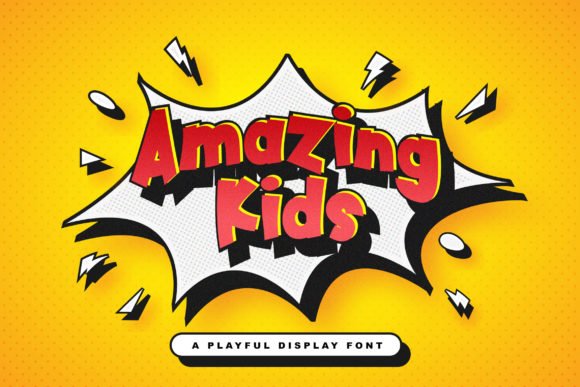
Bring Joy to Your Designs with Amazing Kids Font
Have you ever stared at a blank canvas, searching for the perfect combination of words and images to capture the essence of your creative idea? We’ve all been there – stuck in a rut, yearning for that spark that will bring our vision to life. For designers, this moment can be particularly daunting, but what if we told you that there’s a secret ingredient to add that extra oomph to your designs?
Enter the Amazing Kids Font, a playful and whimsical display font designed to add a touch of joy and whimsy to your creative endeavors. With its quirky charm, this font is sure to bring a smile to your face and elevate your designs to new heights. Whether you’re creating a children’s book, a birthday invitation, or a social media post, the Amazing Kids Font is the perfect addition to make your work truly stand out.
Amazing Kids Font Key Features
- Unique Character Set: The Amazing Kids Font features a custom-designed character set that includes letters, numbers, and symbols tailored for children’s educational materials.
- Color Variations: The font comes in 6 vibrant color variations, including blue, green, yellow, red, purple, and orange, to add a playful touch to educational materials.
Amazing Kids Font Review
I recently had the chance to work with the Amazing Kids Font, and here’s my honest take on it.
- Fun and playful feel: The font has a great, whimsical vibe that’s perfect for children’s books, apps, or other projects targeting young audiences.
- Wide character set: The font includes a range of characters, including Latin, Cyrillic, and Greek alphabets, making it a great choice for global projects.
- Customizable: The font allows for some customization options, such as font size and color, which can be useful for adapting the font to different design contexts.
- Limited flexibility: The font’s playful feel may not be suitable for more serious or formal projects.
- Not ideal for small text: The font’s thick lines and rounded shapes can make it difficult to read in smaller sizes.
- Not a lot of weight options: The font only comes in a few weights, which may limit its usability in projects requiring more variety.
Overall, the Amazing Kids Font is a fun and playful choice for projects targeting young audiences. While it has some limitations, it’s a great option for designers looking to add some whimsy to their designs.
Tips for Getting the Most Out of the Amazing Kids Font
For best results, use the Amazing Kids Font for headings and titles to create a playful and eye-catching design.
Experiment with different font sizes and styles to add visual interest to your design.
The Amazing Kids Font is perfect for:
Children’s book covers and illustrations.
Party invitations and decorations.
Education and learning materials.
Q: What is the recommended font size and line height for the Amazing Kids Font?
For optimal readability, we recommend using a font size between 12 and 24 points, with a line height of at least 1.2 times the font size. This will help ensure the text remains clear and legible, especially in digital formats.